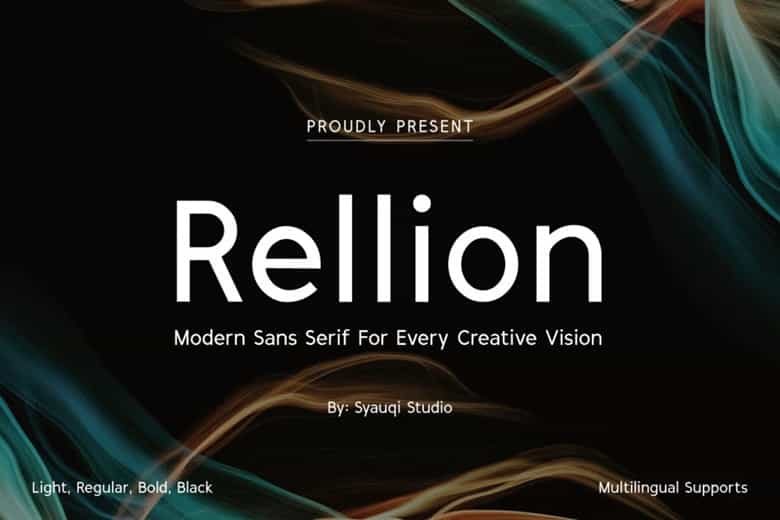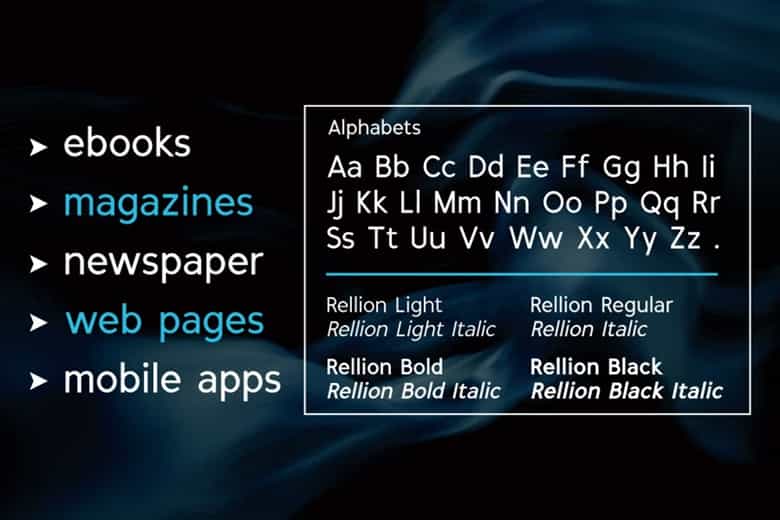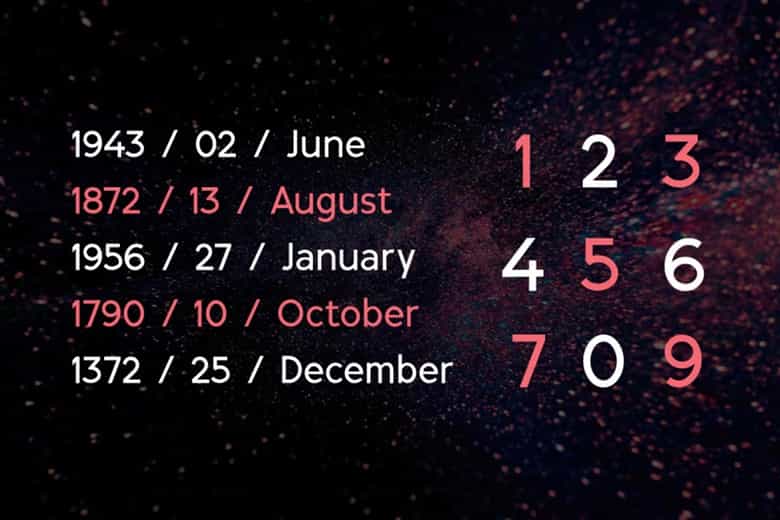
Rellion is an accurately designed modern sans serif typeface containing neat and clean look and representing elegant minimalism. Made for designers, innovators, and brands who appreciate clean and sophisticated look,